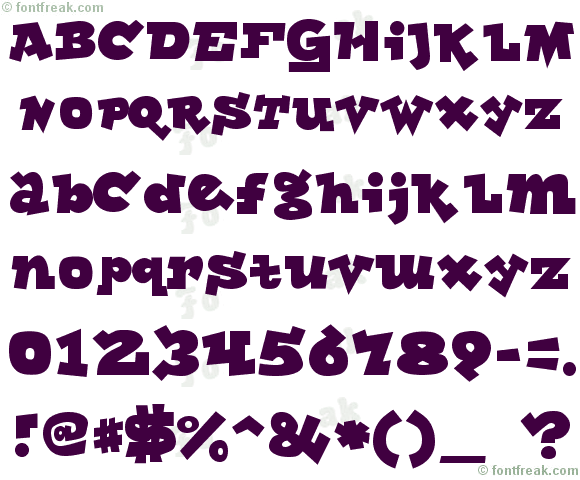
Lockergnome
Lockergnome is a distinctive display font designed by Ray Larabie in 1997, which is available for free download. This font falls into the decorative category, characterized by its bold, playful letterforms that exude a sense of whimsy and creativity. The strokes are thick and rounded, contributing to its approachable and friendly appearance, while the irregular shapes add a unique flair that sets it apart from standard typefaces. The spacing is well-balanced, ensuring that each letter stands out without overwhelming the reader.
Ideal for a variety of creative projects, the Lockergnome font shines in use cases such as eye-catching movie posters, vibrant children's book covers, engaging flyers for events, and fun promotional materials for businesses aiming to convey a lighthearted brand personality. Its playful nature makes it especially suitable for designs targeting younger audiences or those in creative industries, such as graphic designers, content creators, and small business owners looking to make a memorable impact.
Lockergnome font free download provides an excellent opportunity for designers to experiment with a unique typeface without any cost. Its versatility allows for both informal and professional applications, making it a valuable addition to any designer’s toolkit. The combination of its bold strokes and whimsical character makes Lockergnome an appealing choice for anyone looking to add a touch of fun to their designs. In a crowded field of typefaces, Lockergnome stands out for its ability to convey a sense of personality and creativity, making it an excellent choice for projects that aim to captivate and engage an audience.